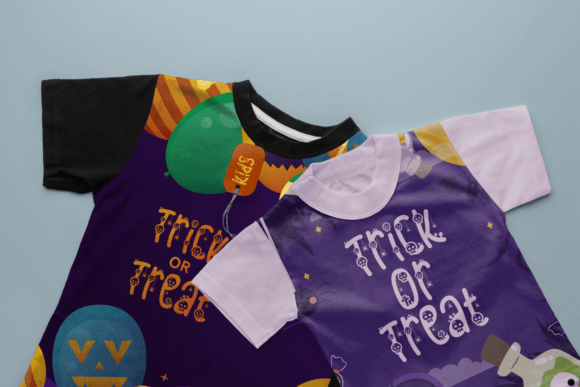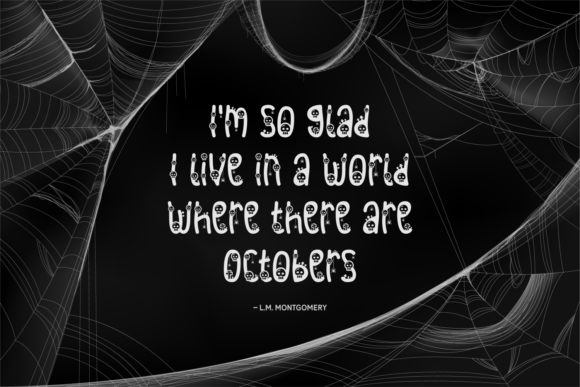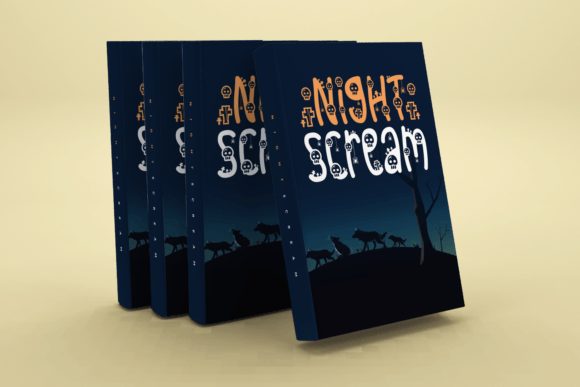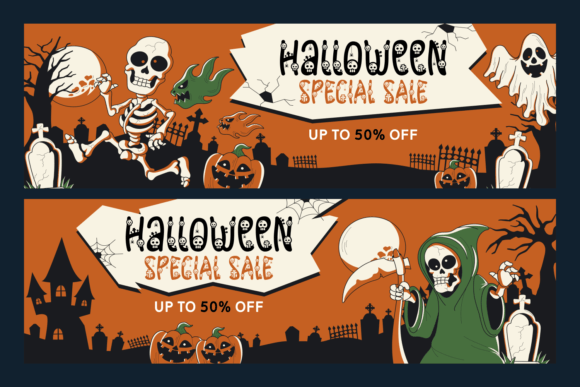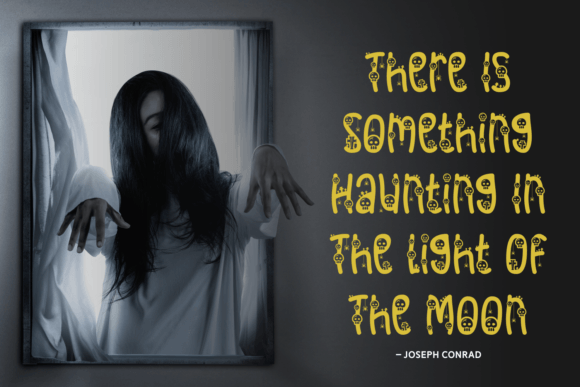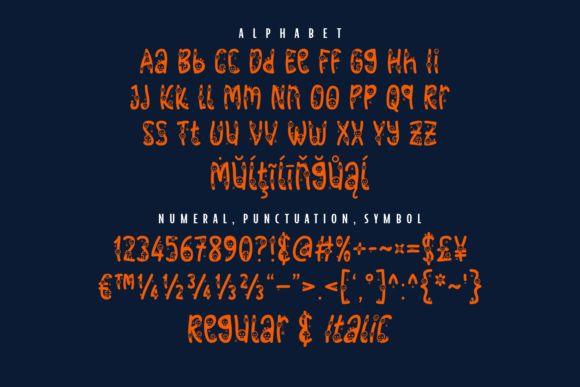
Introduction to Simple Spooky Story Font
As the clock strikes midnight on a crisp autumn evening, you find yourself surrounded by an eerie silence, the perfect ambiance for sparking your creativity. It’s moments like these that designers crave – the chance to let their imagination run wild and bring their ideas to life. And what better way to do so than with the perfect font? That’s where the Simple Spooky Story Font comes in, a delightful addition to any design resource that’s sure to elevate your creative project.
Whether you’re working on a Halloween-themed poster, a spooky invitation, or a high-quality digital art piece, this unique font is an ideal choice. Its transparent background and intricate design elements make it a valuable asset for designers looking to add a touch of elegance and sophistication to their work. And the best part? It’s available for free download, making it an accessible resource for creatives of all levels.
Key Features of Simple Spooky Story Font
- Unique, hand-drawn design with a spooky and mysterious feel, perfect for creative projects.
- Features a transparent background, allowing for easy layering and manipulation in design applications.
- High-resolution design, ideal for use in large-scale prints, billboards, or other high-resolution applications.
- Includes a wide range of characters, including uppercase and lowercase letters, numbers, and special characters.
- Perfect for Halloween-themed designs, horror movies, or any project that requires a spooky and eerie atmosphere.
Honest Review: Simple Spooky Story Font
I recently stumbled upon the Simple Spooky Story Font, and I’m excited to share my thoughts on this design resource. As a designer, I’m always on the lookout for high-quality fonts that can add a touch of creativity to my projects.
The Simple Spooky Story Font is a free download that offers a unique and eerie aesthetic, perfect for Halloween-themed designs or spooky storybooks. The font has a transparent background, making it easy to use in a variety of creative projects.
- ✨ Unique and creative design that’s perfect for Halloween or spooky-themed projects
- ✨ Transparent background makes it easy to use in various creative projects
- ⚠️ Limited character set, which may not be ideal for longer text-based projects
- ⚠️ Some characters may not be as detailed as others, which can affect overall quality
Overall, I’m impressed with the Simple Spooky Story Font’s potential for adding a spooky touch to creative projects. While it has some limitations, it’s a great resource for designers who want to add a unique and eerie feel to their designs.
How to Use Simple Spooky Story Font
The Simple Spooky Story Font is a high-quality, free download design resource perfect for creative projects. Its unique style and design make it an ideal choice for adding a spooky touch to your designs.
Transparent Background
The Simple Spooky Story Font has a transparent background, making it easy to place over any image or background without worrying about the font’s background color.
Getting the Most Out of the Font
For the best results, use the Simple Spooky Story Font in conjunction with other spooky design elements, such as creepy textures and eerie colors. Experiment with different font sizes and styles to create a unique and spooky look.
The Simple Spooky Story Font is perfect for Halloween-themed designs, spooky stories, and horror movie posters. It’s also great for creating invitations, flyers, and other promotional materials with a spooky twist.
Yes, the Simple Spooky Story Font includes a transparent background option, allowing you to easily place the text over any background image or design element. This feature makes it a valuable resource for designers who want to create visually striking designs.